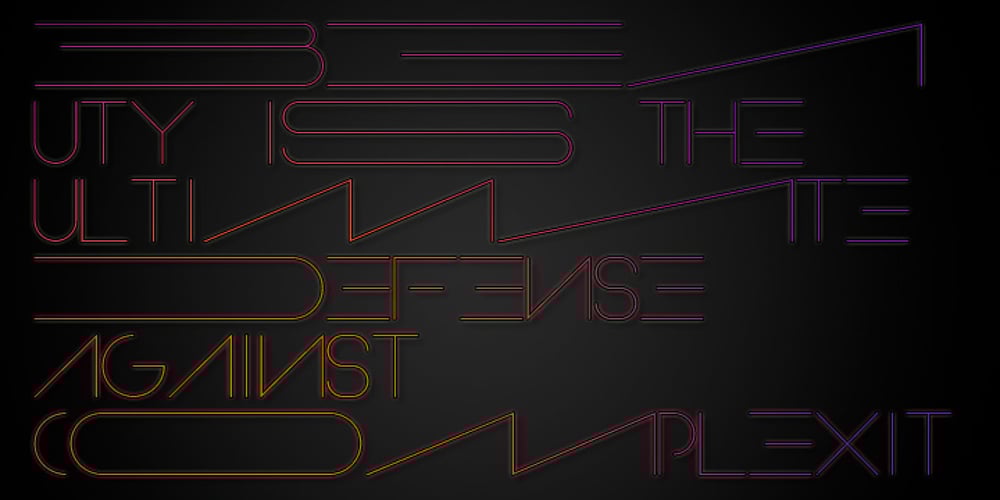
Indice Font Family was designed by Alexandre Venancio and published by Oporto Design. Indice contains 2 styles and family package options. An innovative font from Oporto Design, Indice is clean, modern and urban.